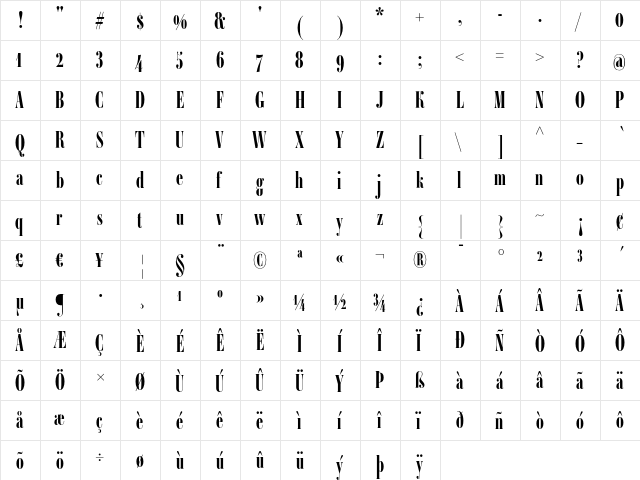
Ambroise Francois Bold
Design Context for Ambroise Francois Typeface
Ambroise Francois takes a measured approach to typography — its balanced proportions and neutral character make it a reliable workhorse for both digital and print work. The heavy weight commands attention and anchors typographic hierarchies.